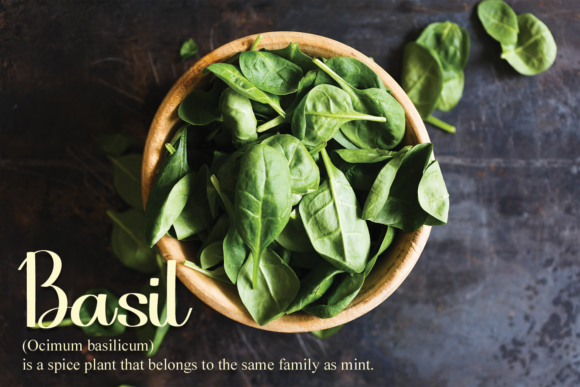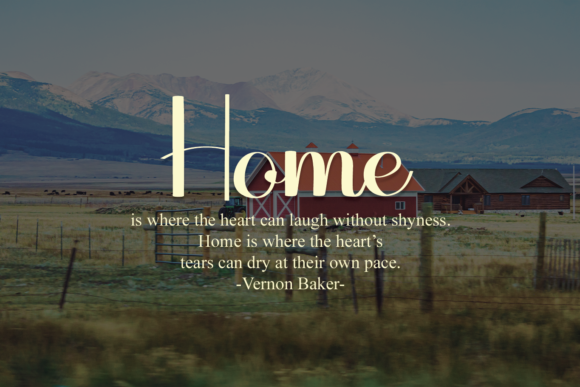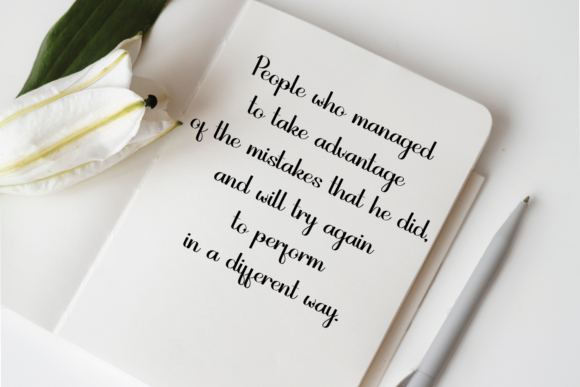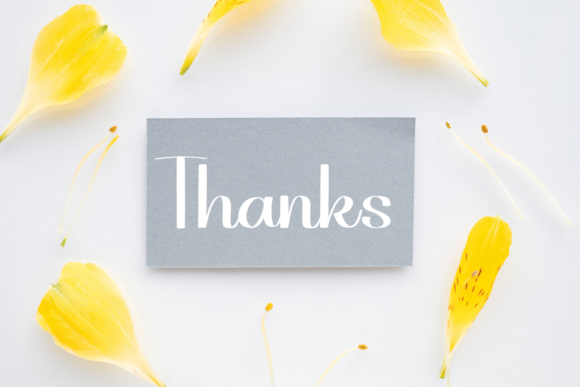
The Perfect Recipe for Your Designs: Cooking Font
I’ll never forget the time I was working on a branding project for a high-end bakery, and I just couldn’t find the right font to match their sophisticated vibe. The client wanted something that exuded elegance and refinement, but everything I tried seemed to fall flat. That’s when I stumbled upon Cooking Font, and it was love at first sight! 💕
Cooking Font is a chic and refined script font that emanates sophistication and elegance. Its stylish alternates and ligatures make this font the perfect match for any creative project you wish to create. Add it to your designs, and notice how it makes them come alive!
- ✨ Elegant and refined design that’s perfect for high-end projects
- ✅ Stylish alternates and ligatures that add a touch of sophistication
- 💫 Highly versatile and can be used for a variety of design projects, from logos to invitations
- 🎉 Easy to read and understand, even in smaller font sizes
While Cooking Font is an amazing addition to any design project, there are a few things to keep in mind:
- 🤔 Some of the more intricate ligatures can be a bit finicky to use, especially for beginners
- ⚠️ The font may not be the best choice for body text, as it’s more suited for headlines and titles
The Story Behind Cooking Font
Cooking Font was designed by a team of typographers who wanted to create a font that would evoke the elegance and sophistication of fine dining. Inspired by classic script fonts and refined by modern design principles, Cooking Font is the perfect blend of old and new.
Q: What is Cooking Font?
Cooking Font is a chic and refined script font designed for creative projects, branding, and high-end designs.
Q: Is Cooking Font suitable for body text?
While Cooking Font is an amazing font, it’s more suited for headlines and titles. For body text, you may want to choose a font with better readability.